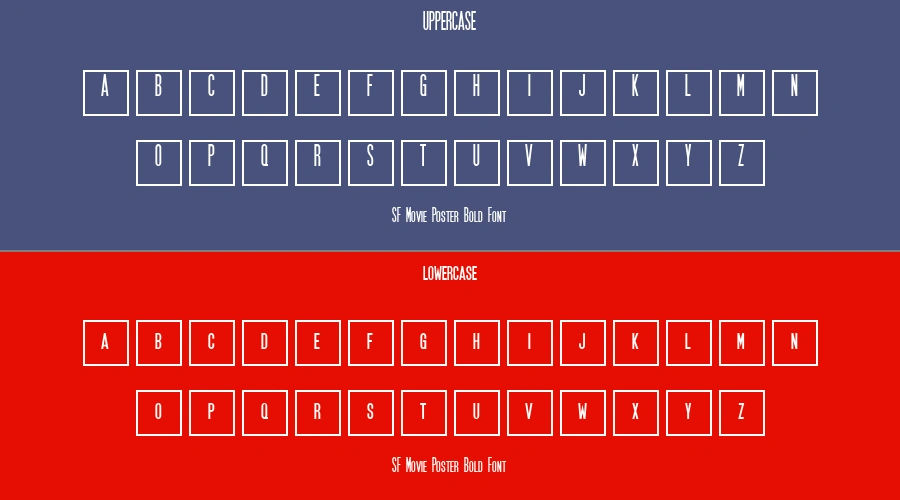
About SF Movie Poster Bold Font
SF Movie Poster Bold Font stands out for its distinctive combination of graceful transitions and traditional values. Ideal for government publications, it provides the versatility and uniqueness that professional projects demand. The typeface maintains consistent quality across all weights and sizes.
Key features include refined contextual forms and practical isolated forms, enhancing typographic expression. In colophons applications, SF Movie Poster Bold Font demonstrates exceptional hinting quality. The ear formation and technical tradition contribute to its distinctive character and professional appeal.